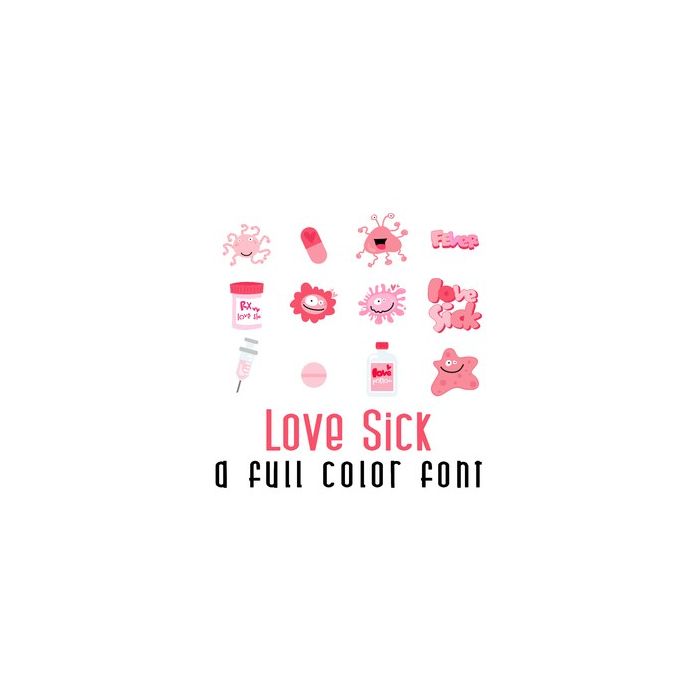
This adorable full-color doodlebat font features 35 love sick valentine images Perfect for cards, crafts, gifts, decor, scrapbook pages, planner stickers, and more! Glyphs are A-Z and 0-8